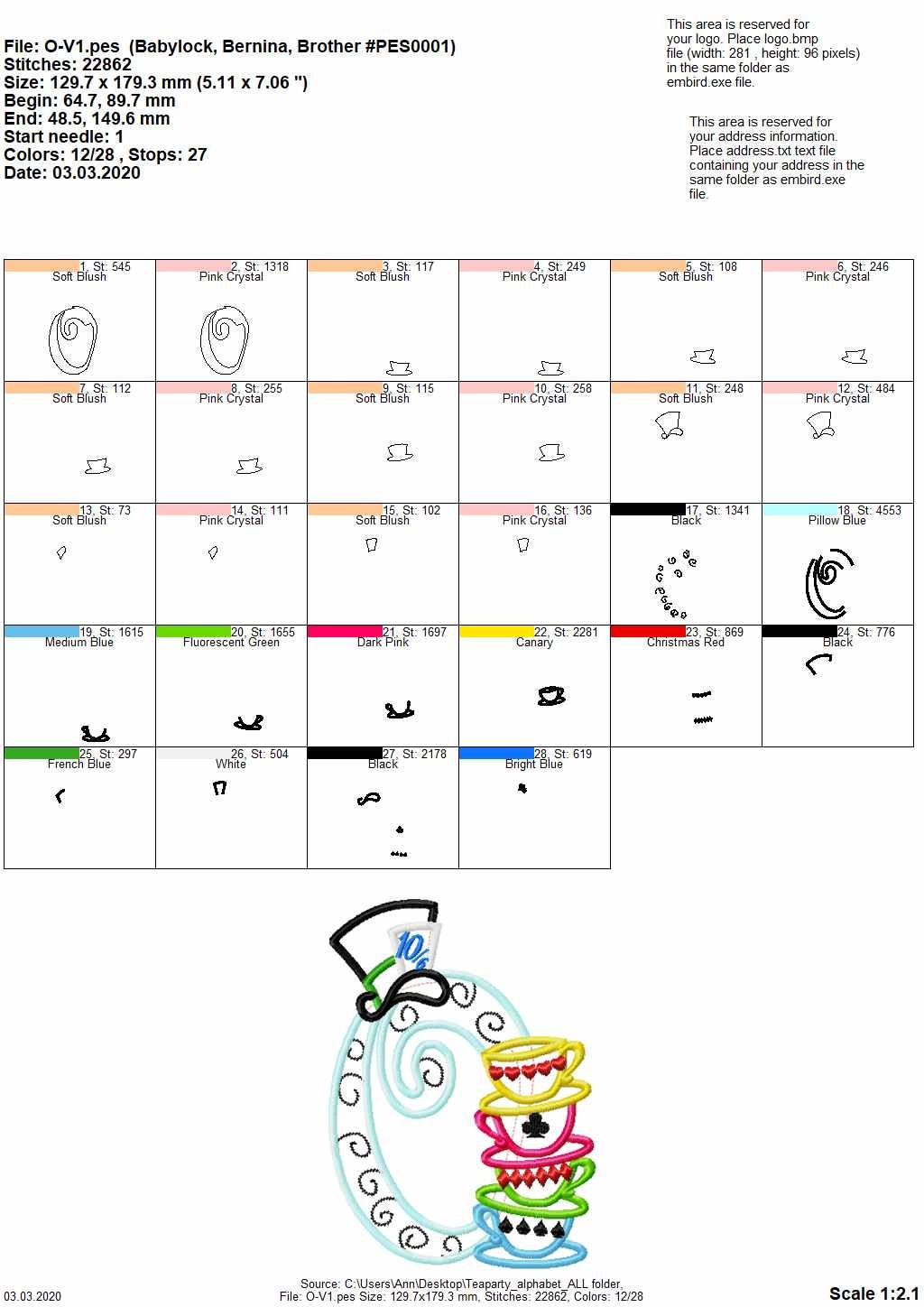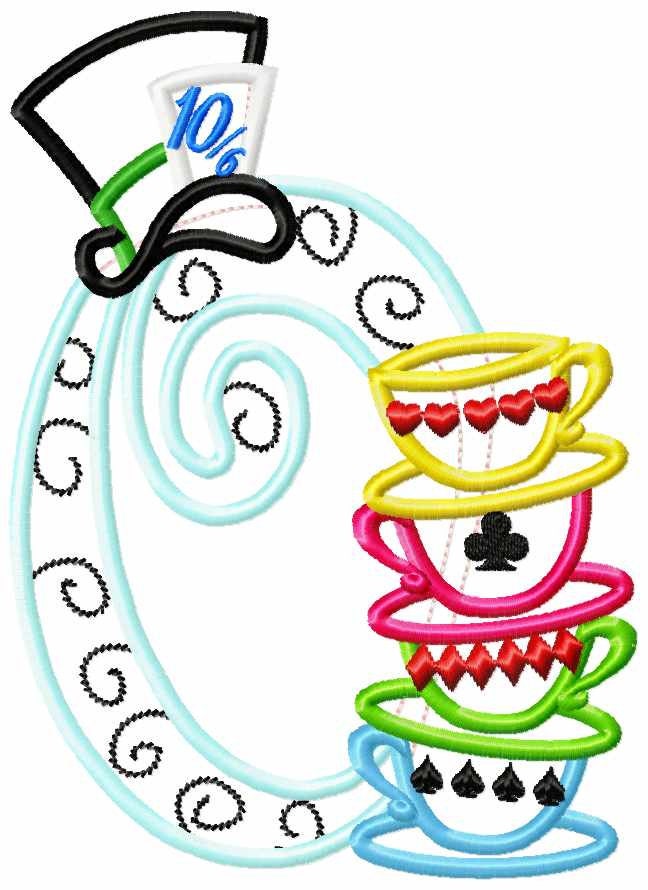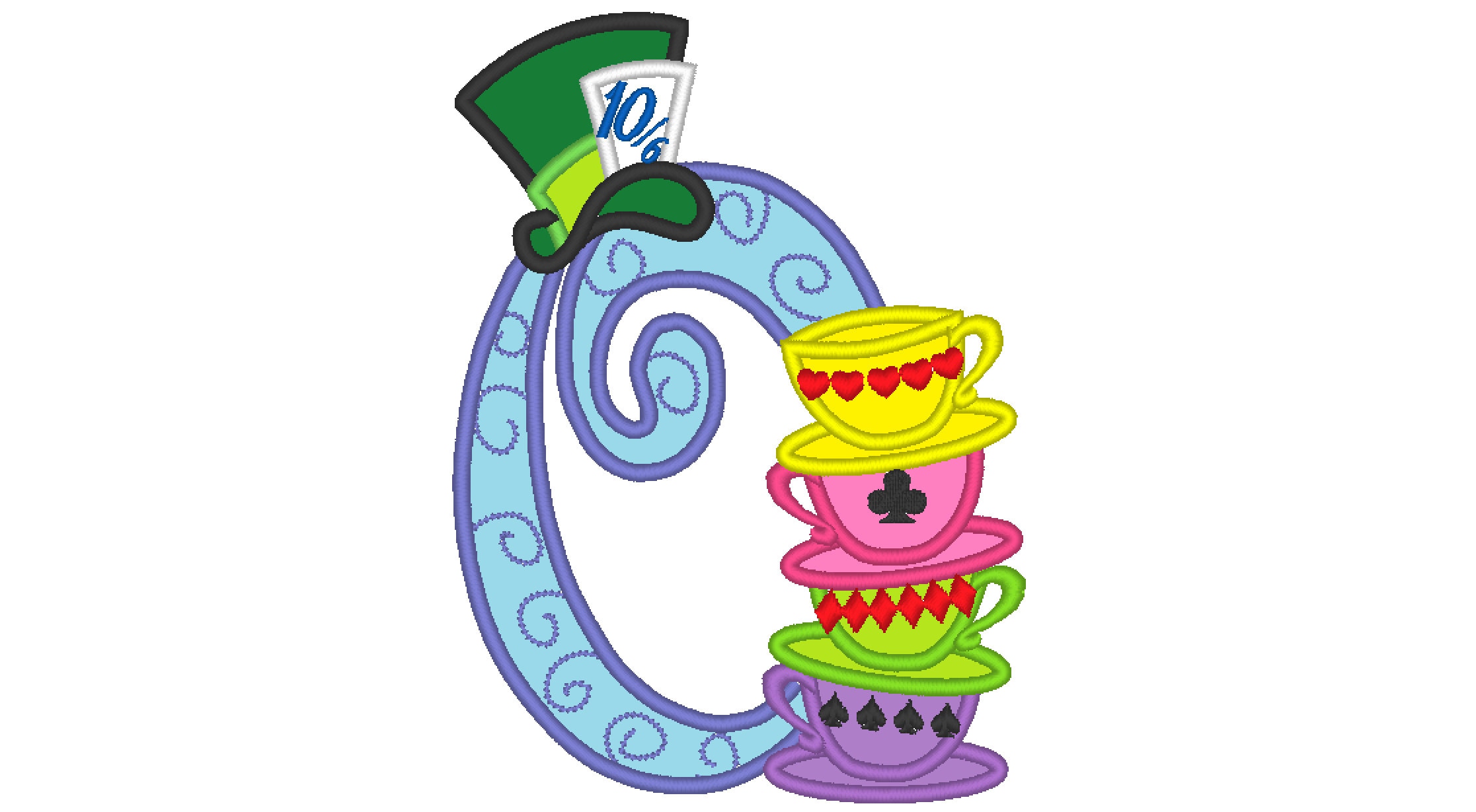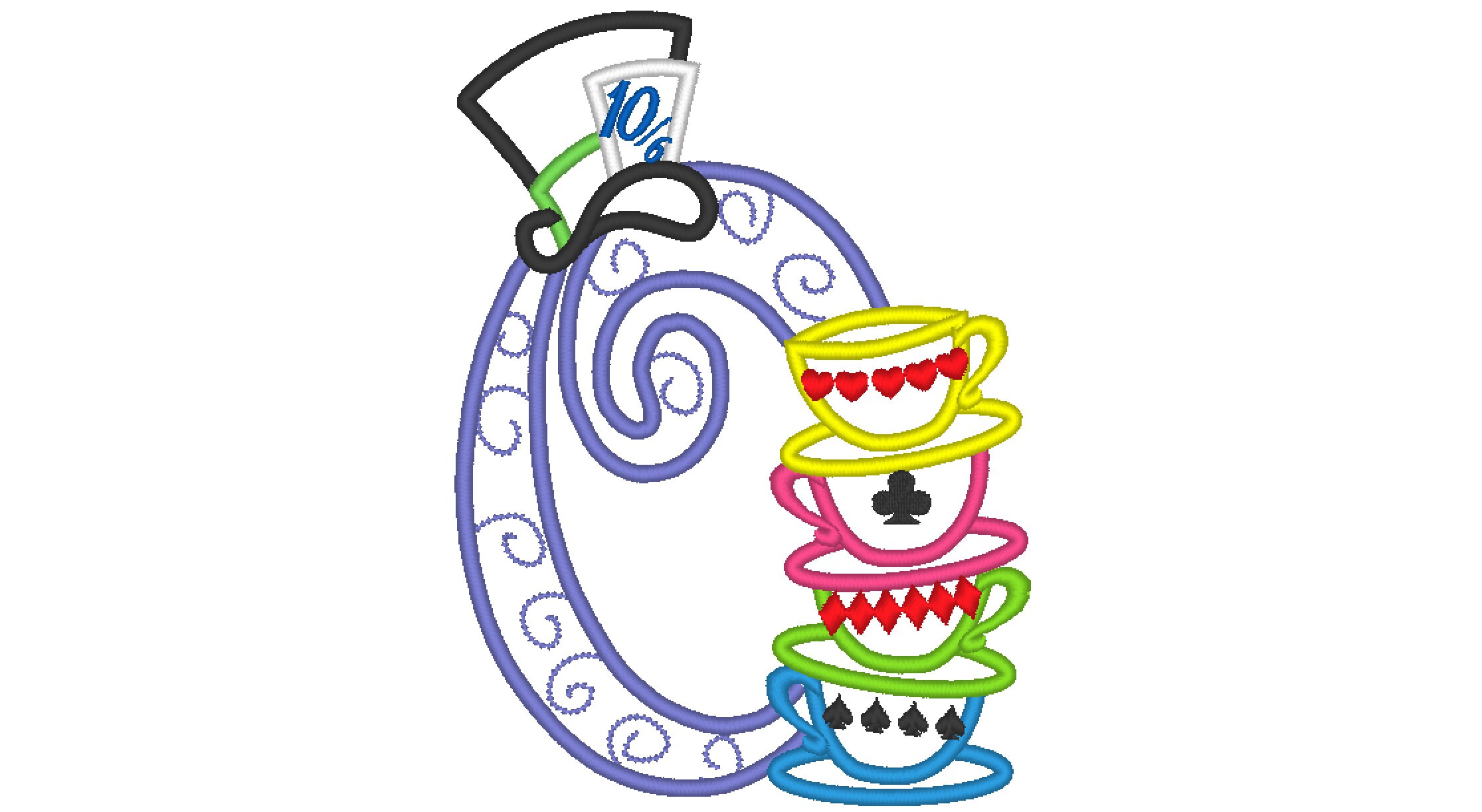
Mad hattaer Alice in wonderland teaparty stack of curved teacups monogram letter O Birthday party applique alphabet machine embroidery
Mad hattaer Alice in wonderland teaparty stack of curved teacups monogram letter A Birthday party applique alphabet machine embroidery designs